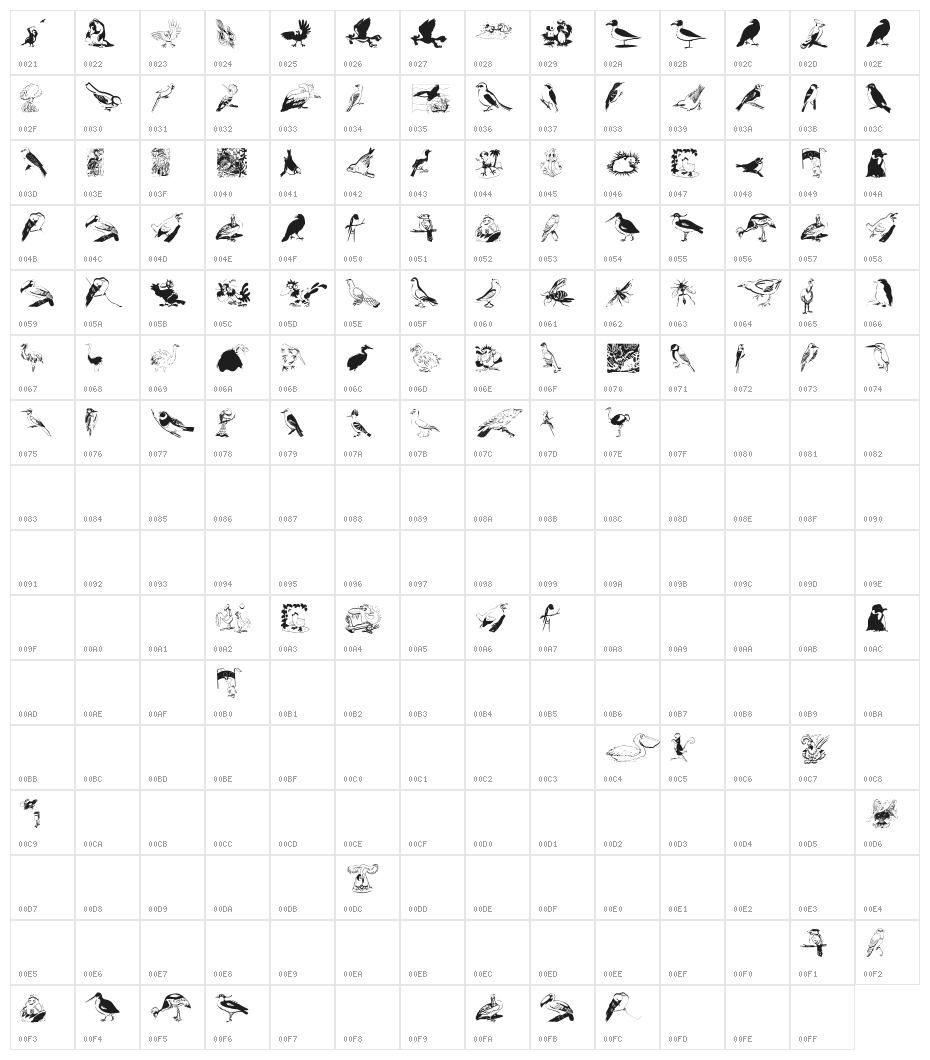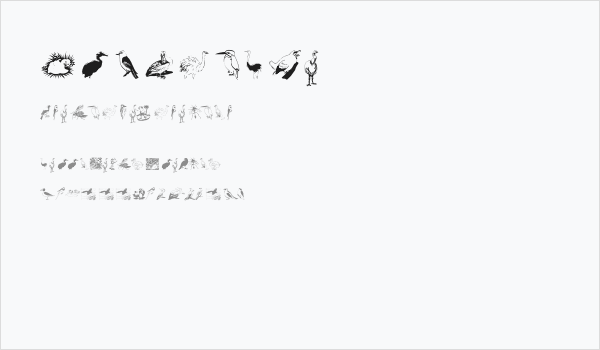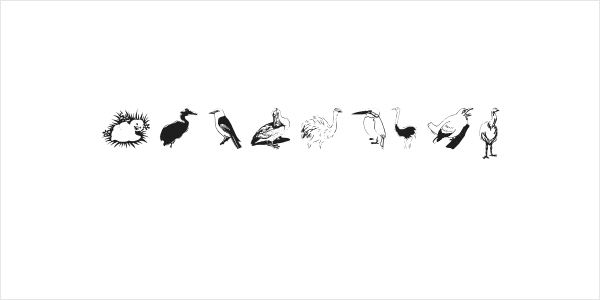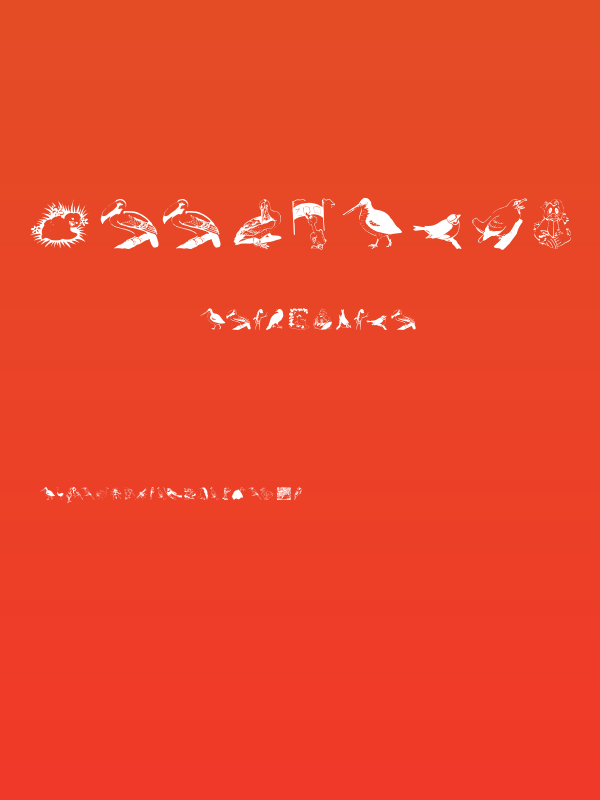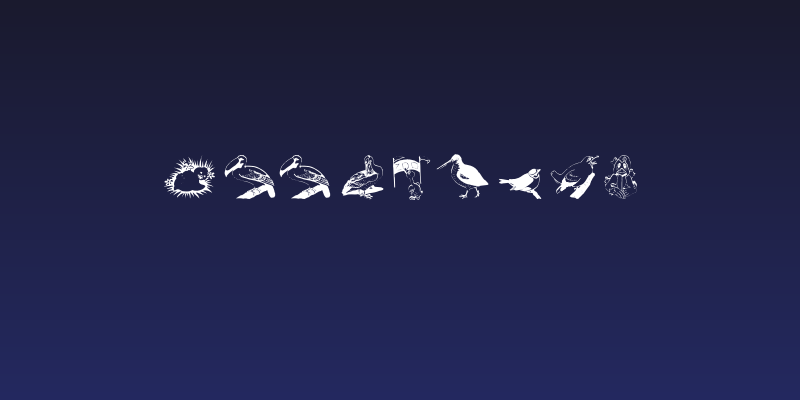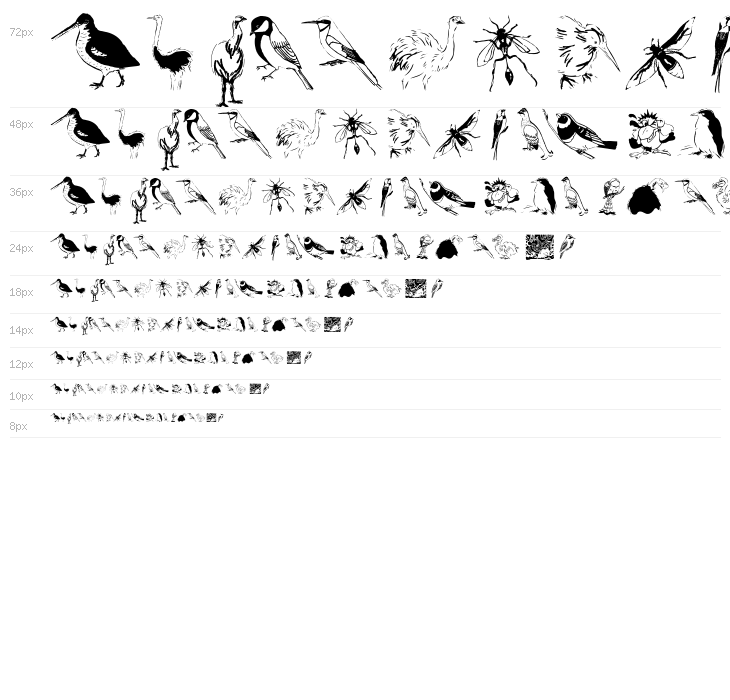
FlyWithMe Font
FlyWithMe Description
This font is a decorative and playful typeface where each character is creatively designed to incorporate bird illustrations. The letters are formed using various bird species, each character uniquely crafted to represent a different bird, adding a whimsical and artistic touch. The font is highly detailed, with intricate line work that captures the essence of each bird, making it visually engaging and distinctive. The characters are not uniform in style, as each letter takes on the characteristics of the bird it represents, resulting in a diverse and eclectic appearance. This font is ideal for projects that require a fun and nature-inspired theme, offering a unique way to incorporate wildlife into design work.
Use CaseLogos, Posters, Creative Titles
Proposed ProjectsIdeal for nature-themed posters, children's books, educational materials, and creative branding projects.